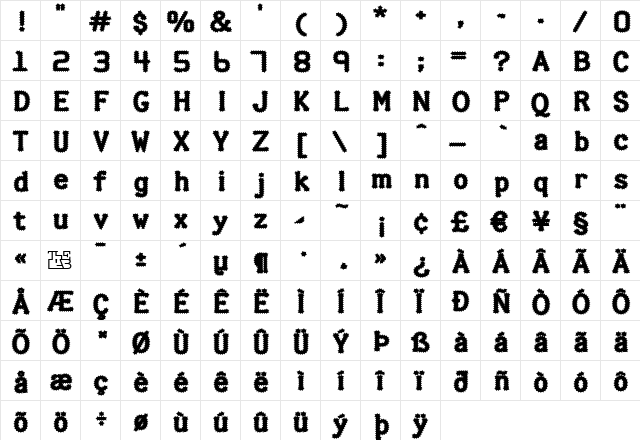
Halter Pinchy Regular
Design Context for Halter Pinchy Typeface
Halter Pinchy takes a measured approach to typography — its balanced proportions and neutral character make it a reliable workhorse for both digital and print work.
Pro Tip: Pair Halter Pinchy with a font of contrasting weight or personality to build a more expressive typographic hierarchy.